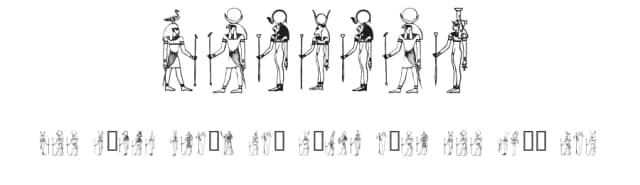
About Lost World Font
Lost World is a decorative display font by Shrine Of Isis Font Foudry, bringing ornamental sophistication and striking visual impact to designs that require a commanding, refined aesthetic. With its fancy, decorative styling grounded in ornamental letterforms, this typeface functions as a compelling display choice for headlines and focal points in projects where personality and elegance take clear priority over conventional readability.
The font excels across multiple decorative applications within the design industry: luxury brand identities and boutique retail materials, vintage-inspired theatrical posters and period event announcements, special occasion invitations including engagement celebrations and formal social gatherings, and craft applications such as vinyl cutting designs for custom home dΓ©cor or personalized materials. Its ornamental character proves particularly effective for independent shop signage, distinctive niche brand logos, sophisticated fashion and beauty marketing materials, and premium packaging design that demands visual distinction and refined character.
Lost World Font is a decorative font that shines as a display or heading face. Pair it with a clean sans-serif or serif font for body text β the contrast creates a clear hierarchy while the two styles stay balanced and easy to read.